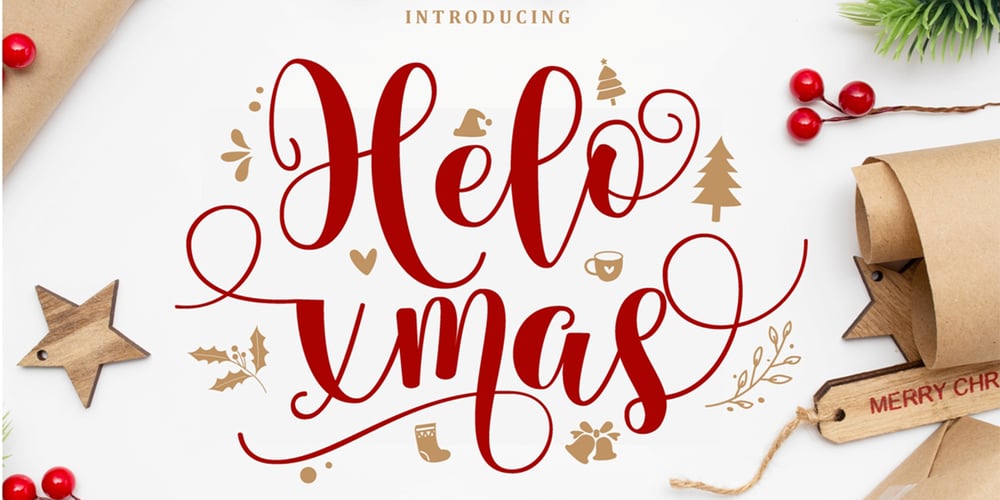
Helo xmas Font Family was designed by Gumilar Pratama Adiatna and published by Gilar Studio. Helo xmas contains 1 styles and family package options. Hello xmas is a Christmas Script font and an extra font containing doodle illustration.Hello xmas looks stunning on wedding invitations, thank you cards, quotes, greeting cards, logos, business cards and every other design which needs a handwritten touch.This font is PUA encoded which means you can access all of the glyphs and swashes with ease! It features a varying baseline, smooth lines, gorgeous glyphs and stunning alternates.Please check all lowercase, uppercase and numerals to access all Doodle in font format.The best tool if you want to create t-shirt designs, mug designs, logos or just play around.Features :Uppercase & LowercaseNumerals & Punctuations (OpenType Standard)Accents/Multilingual charactersbeginning and ending swash (ss01-ss07)beautyful ligaturePUA EncodedTo access all OpenType Stylistic alternates, you need a program thatsupports OpenType features such as Adobe Illustrator, Adobe Photoshop,CorelDraw and Microsoft word.The font has PUA Unicode (Private Use Areas – font specific code), sothat all the alternative characters (with flourishes and swirly lines)can be easily accessed in full through Windows and Mac and you can loadthem into applications such as Cricut Design Space and Silhouette Studio.If you don’t have a program that supports OpenType features such as Adobe Illustrator and CorelDraw X Versions, you can access all the alternate glyphs using Font Book (Mac) or Character Map (Windows).To Access Alternate Characters Click The Link Below:Adobe illustrator CS https://www.youtube.com/watch?v=geL0Ye02RykAdobe illustrator CC https://www.youtube.com/watch?v=V25yiUh8BcEMs Word https://www.youtube.com/watch?v=HxkhZiCuwEwCoreldraw X7 https://www.youtube.com/watch?v=UBVsufJjonsAdobe Photoshop CC https://www.youtube.com/watch?v=BYKXl58AdNYIndesign CS https://www.youtube.com/watch?v=HgZTCxKG14QCheck my other Font here : https://gilarstudio.com/Thanks and happy designing ๐